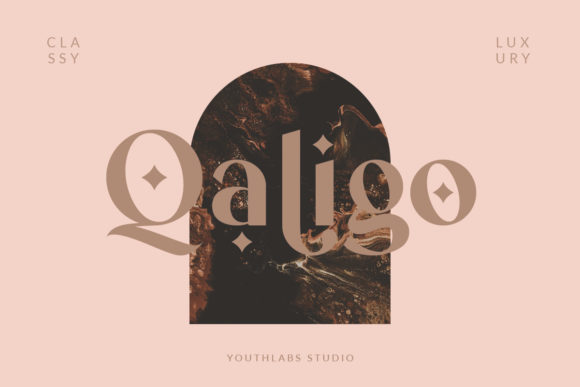
Qaligo Font
Step into the realm of Qaligo, a display font that exudes grace and refinement. Its meticulously crafted strokes dance upon the screen, captivating the eyes with their elegance. Qaligo is the perfect companion for web designs, business cards, and any endeavor yearning for a touch of sophistication.
Qaligo's essence lies in its versatility. It seamlessly adapts to a myriad of creative projects, effortlessly flowing from the digital realm to the tangible world. Whether you're crafting an alluring online presence or leaving a lasting impression with business cards, Qaligo rises to the occasion.
Its timeless beauty transcends the boundaries of trend, ensuring your creations remain captivating for years to come. Qaligo's characters possess an inherent harmony, each letter complementing the next in a mesmerizing dance. The result is a symphony of style that elevates your designs to new heights.
Qaligo isn't merely a font; it's an experience. Its every curve and line invites you on a sensory journey, evoking emotions and leaving an indelible mark on your audience. Let Qaligo be your creative compass, guiding you towards designs that resonate with your soul.
With Qaligo at your fingertips, design possibilities become limitless. Its versatility opens doors to a world of creative expression, empowering you to craft designs that speak volumes. Whether it's a dynamic website, a striking business card, or a captivating social media post, Qaligo transforms your vision into a tangible masterpiece.
Join the ranks of discerning designers who have embraced Qaligo's allure. Let its timeless elegance elevate your designs, leaving a lasting impression on all who encounter them. Qaligo awaits you, poised to unlock the full potential of your creative genius.